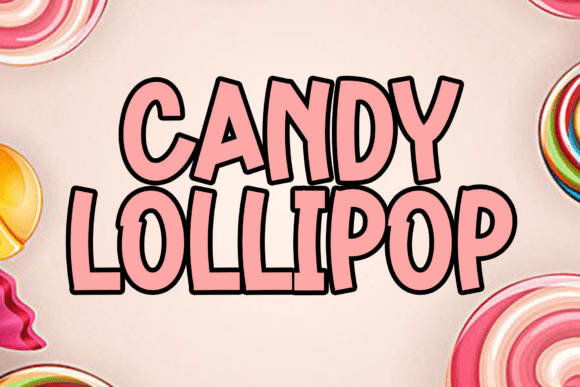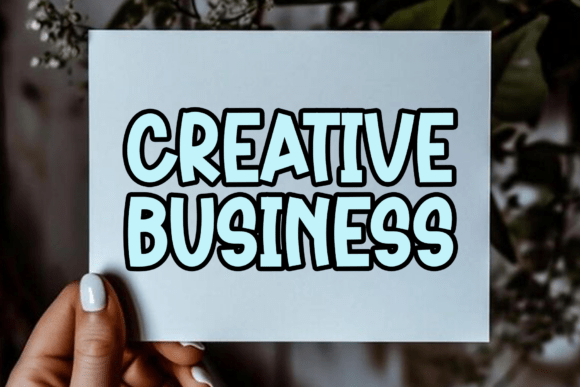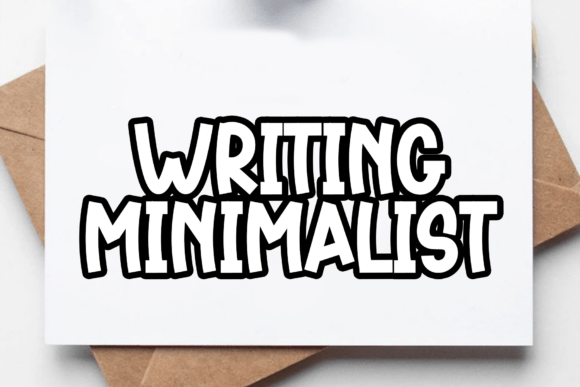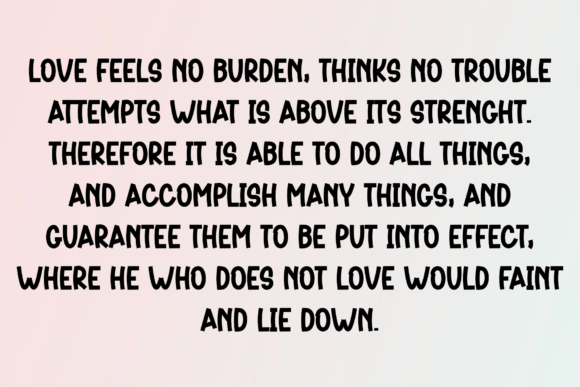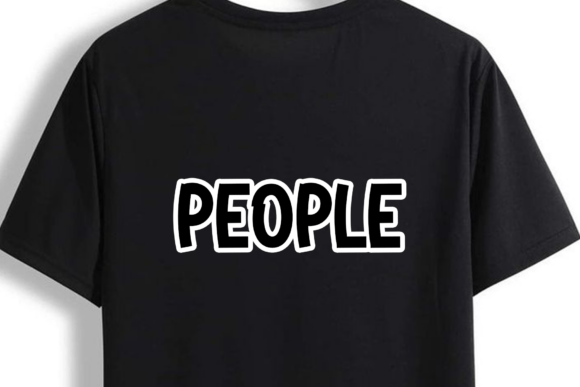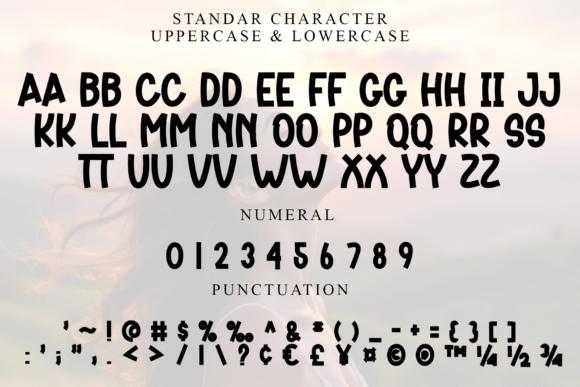
Introduction to Smart Candy Font
Smart Candy is a casual and creative font that exudes warmth and friendliness.
Key Features of Smart Candy Font
Why Choose Smart Candy Font?
Smart Candy Font offers exceptional quality and versatility, making it a valuable addition to your design toolkit. Whether you’re creating for personal projects or commercial use, Smart Candy Font delivers professional results.